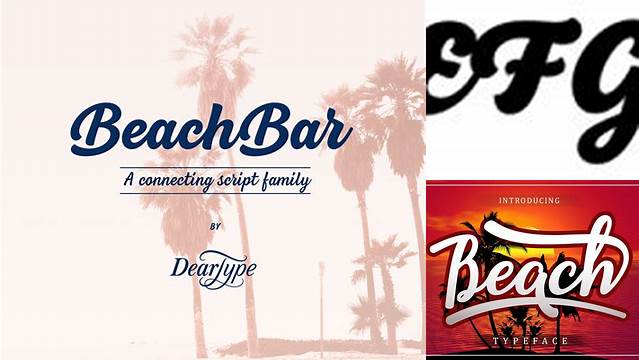
Beachbar Script Bold Font: Free Download & Uses
What is Beachbar Script Bold Font?
First off, let's talk about what makes Beachbar Script Bold such a sought-after font. This font is a beautifully crafted script typeface that exudes a casual yet sophisticated vibe. It’s the kind of font that makes you think of sunny beaches, laid-back atmospheres, and handwritten notes. The bold weight adds a strong presence, ensuring your text stands out while maintaining a graceful flow. This font is perfect for projects that need a personal touch, whether it’s a wedding invitation, a logo, or a social media graphic.
Beachbar Script Bold’s unique characteristics stem from its flowing letterforms and distinct connections. The strokes vary in thickness, mimicking natural handwriting and giving it an authentic feel. The bold weight ensures readability and impact, making it versatile for various applications. Designers love it because it strikes a balance between elegance and approachability, making it suitable for a wide range of projects. Whether you're working on branding materials, invitations, or even website headers, Beachbar Script Bold can bring a touch of warmth and personality.
One of the key reasons for its popularity is its ability to evoke emotion. The flowing script and bold presence combine to create a font that feels both personal and professional. It’s not just a font; it's a tool for storytelling. Imagine using it for a travel blog to capture the spirit of adventure, or for a bakery’s logo to convey the care and craftsmanship that goes into every treat. The possibilities are endless. Furthermore, Beachbar Script Bold’s legibility, even in its bold form, makes it a practical choice for both print and digital media. You don't have to sacrifice style for readability – this font offers both.
Why Choose Beachbar Script Bold?
So, why should you choose beachbar script bold font free download over other fonts? There are several compelling reasons. First and foremost, its versatility is a major draw. This font can be used in a variety of projects, from branding and marketing materials to personal projects like invitations and scrapbooking. Its elegance makes it suitable for formal occasions, while its casual vibe ensures it doesn't feel stuffy or pretentious. The bold weight adds a visual punch, making your text stand out without being overwhelming.
Another key advantage is its unique personality. Beachbar Script Bold has a distinct character that can add flair and warmth to any design. It's not just another generic script font; it has its own identity. This can be especially important for branding projects, where you want your visual identity to stand out and be memorable. Using a font with character can help you create a strong brand presence and connect with your audience on an emotional level. Think about it – a well-chosen font can convey the tone and values of your brand just as effectively as your logo or color scheme.
Moreover, the handwritten feel of Beachbar Script Bold adds a personal touch that can be incredibly appealing. In a world dominated by digital communication, the human element is often lost. Using a script font like Beachbar Script Bold can help you bridge that gap, making your message feel more authentic and heartfelt. This is particularly effective for invitations, thank-you notes, and other forms of personal correspondence. But it’s not just for personal use; businesses can also benefit from this personal touch. Imagine a boutique using Beachbar Script Bold for their signage or a restaurant using it for their menu – it instantly creates a sense of warmth and hospitality.